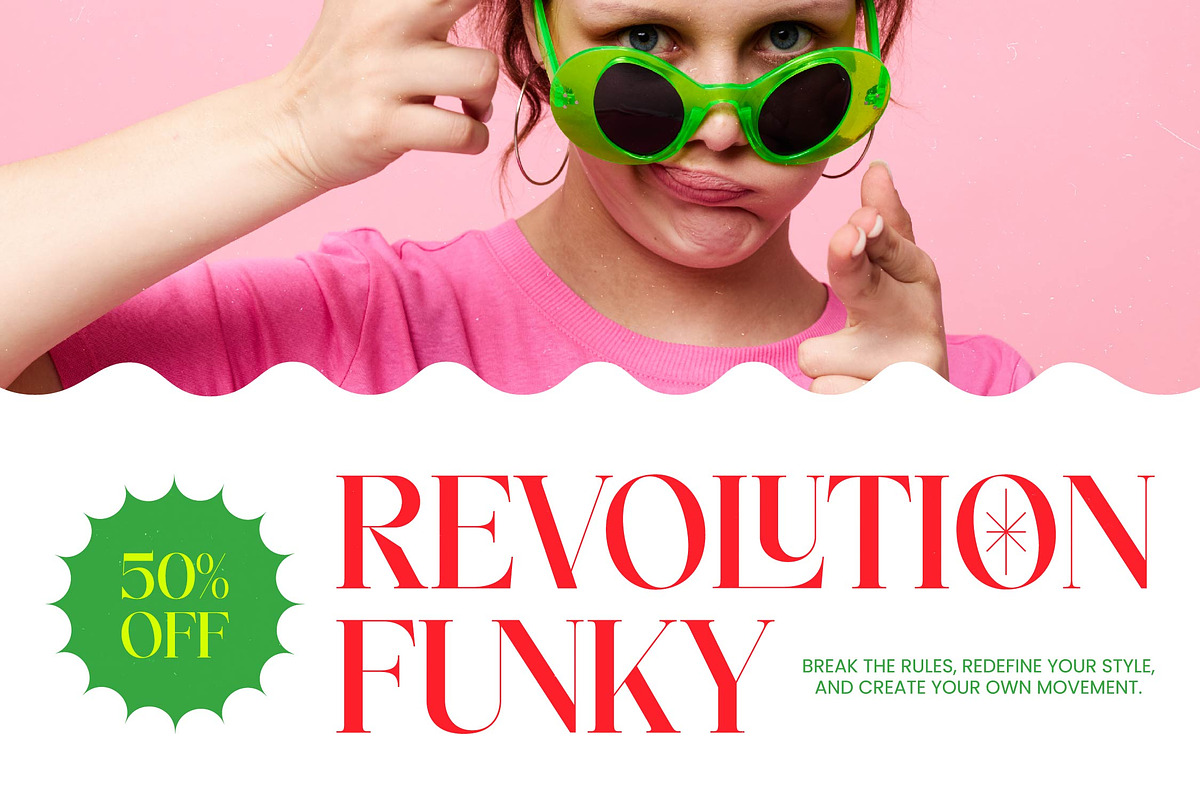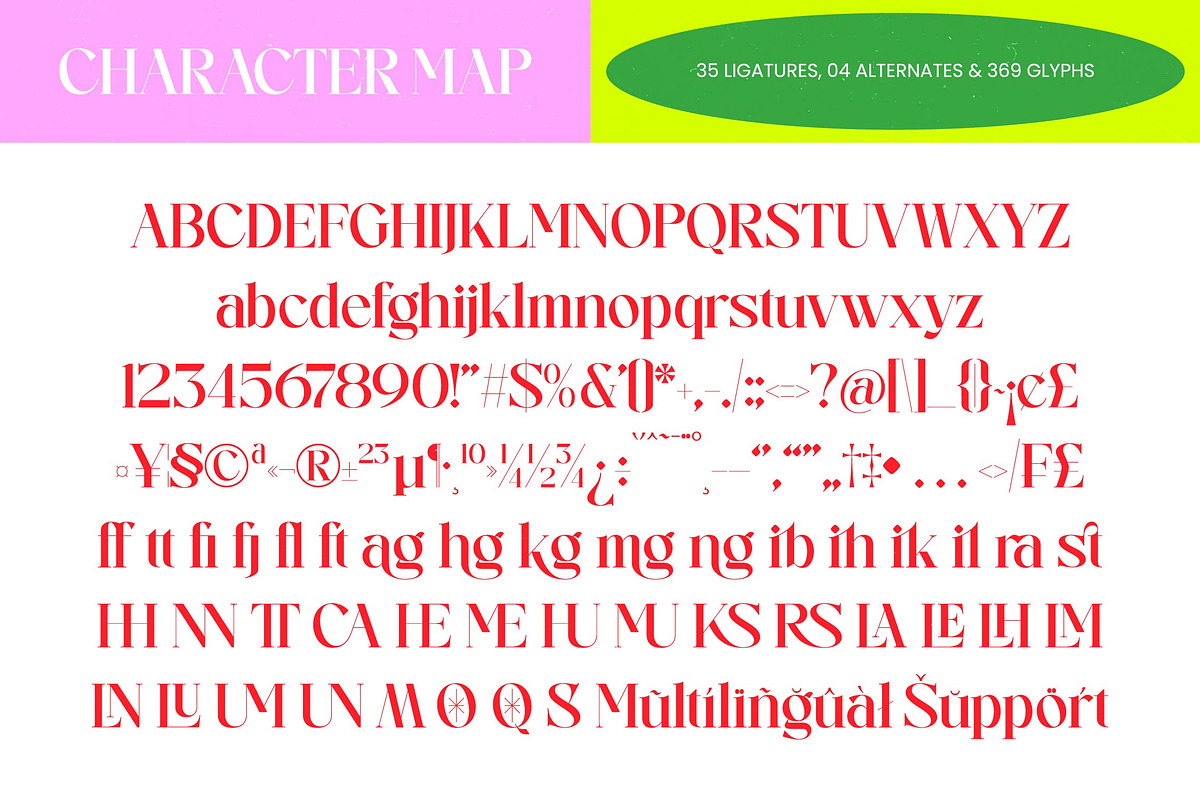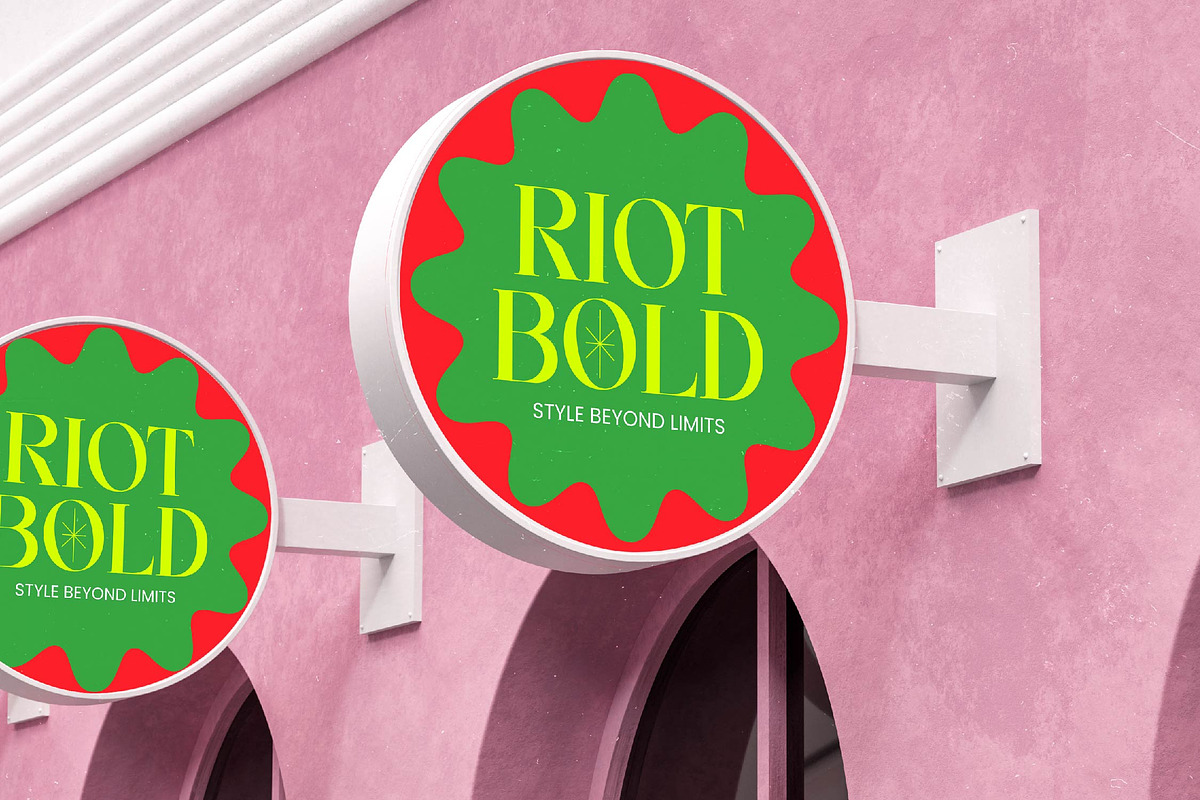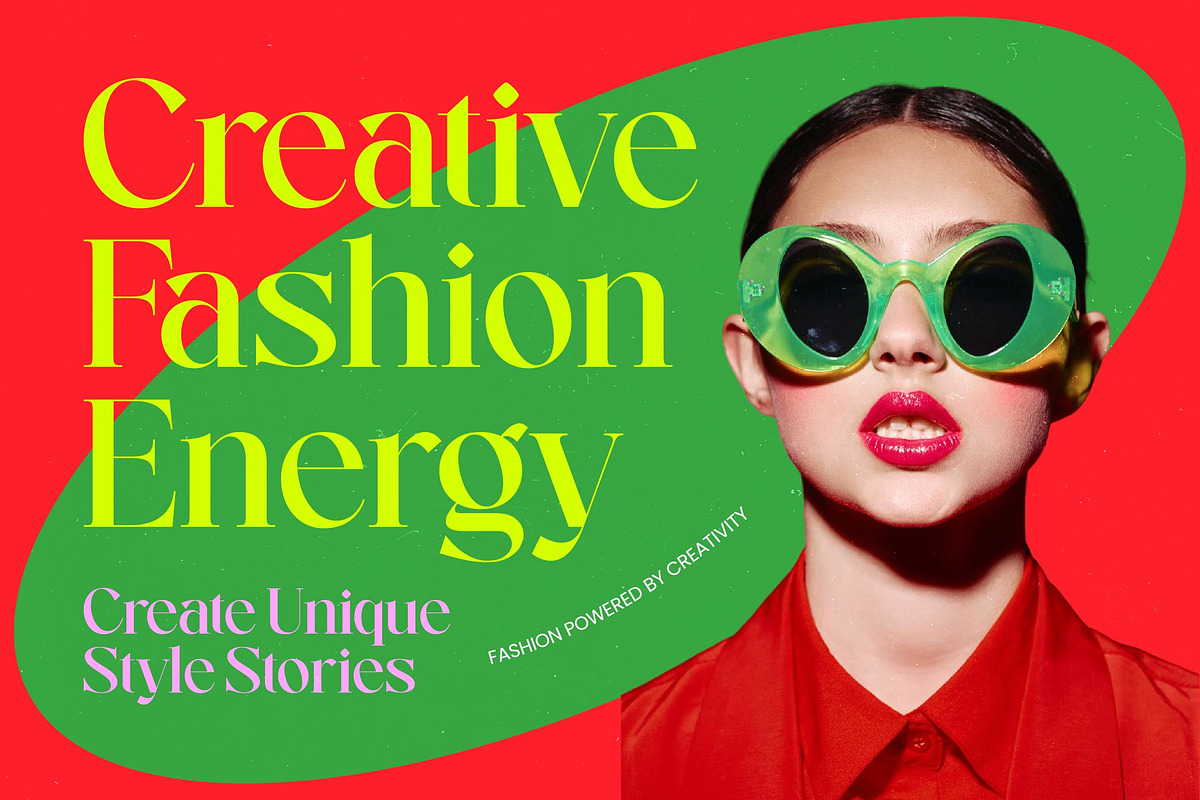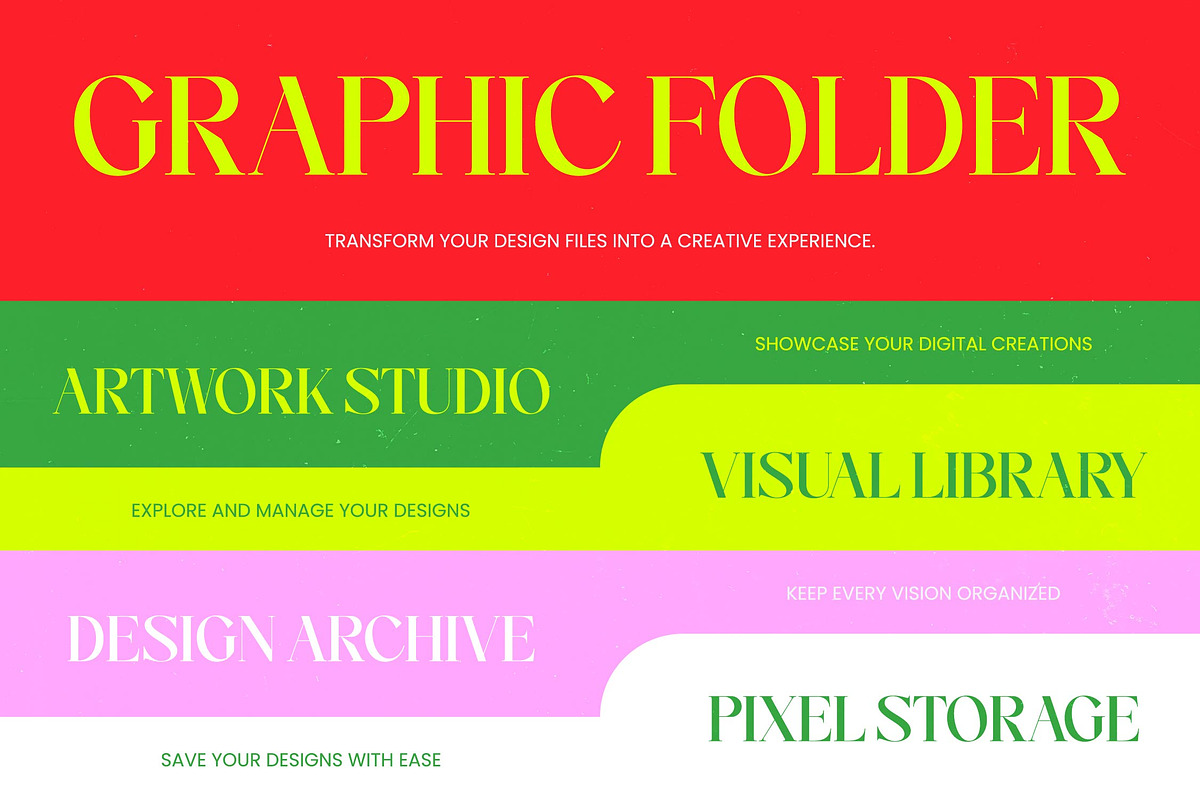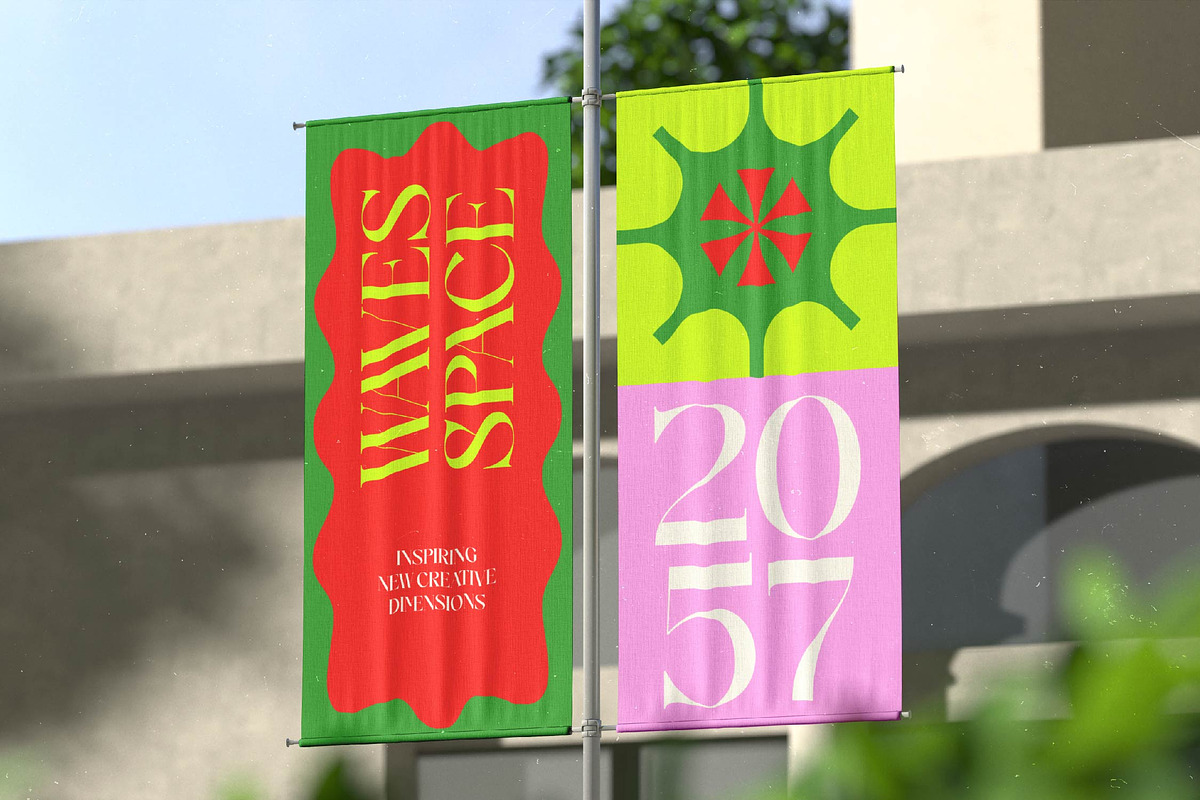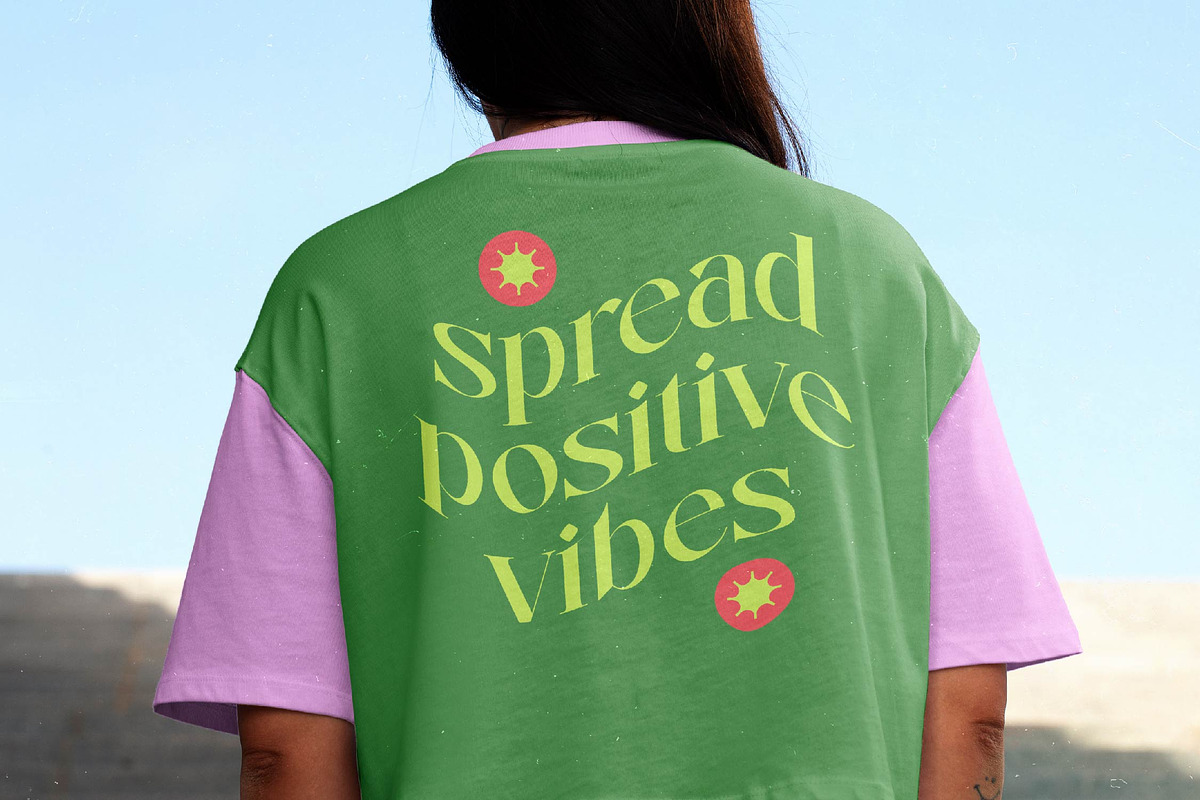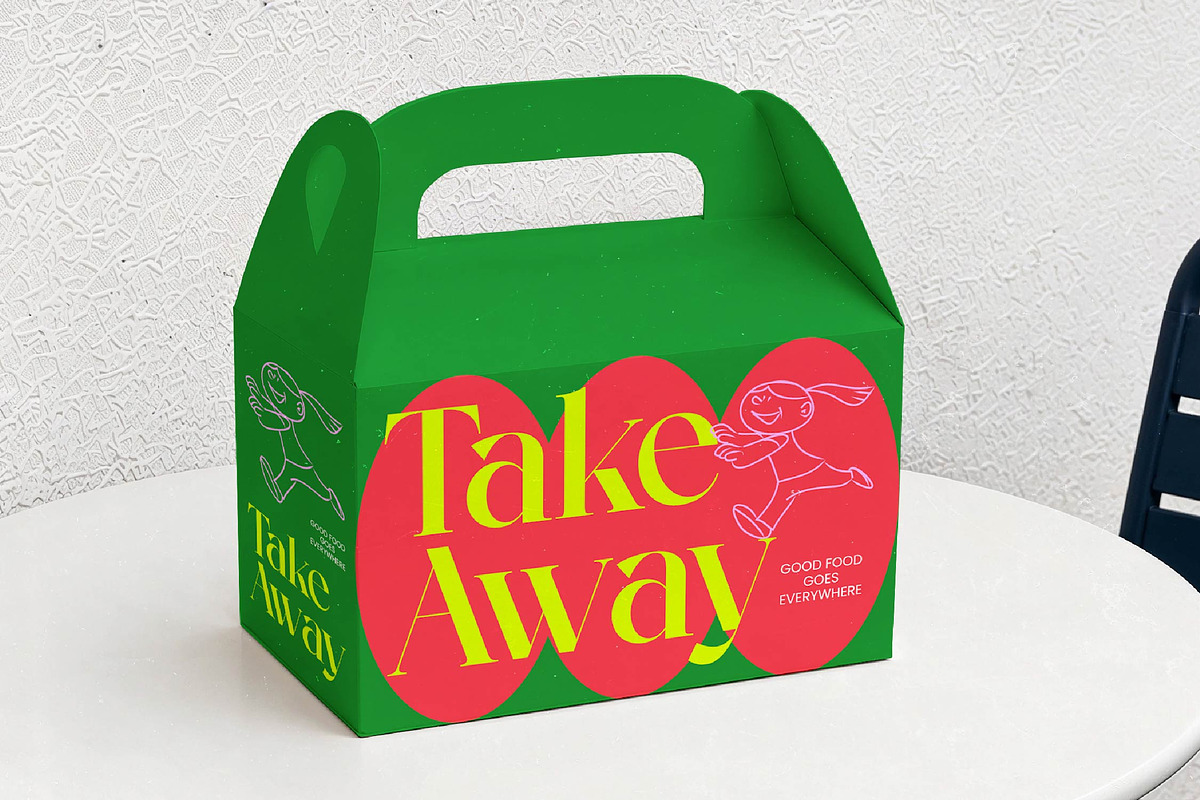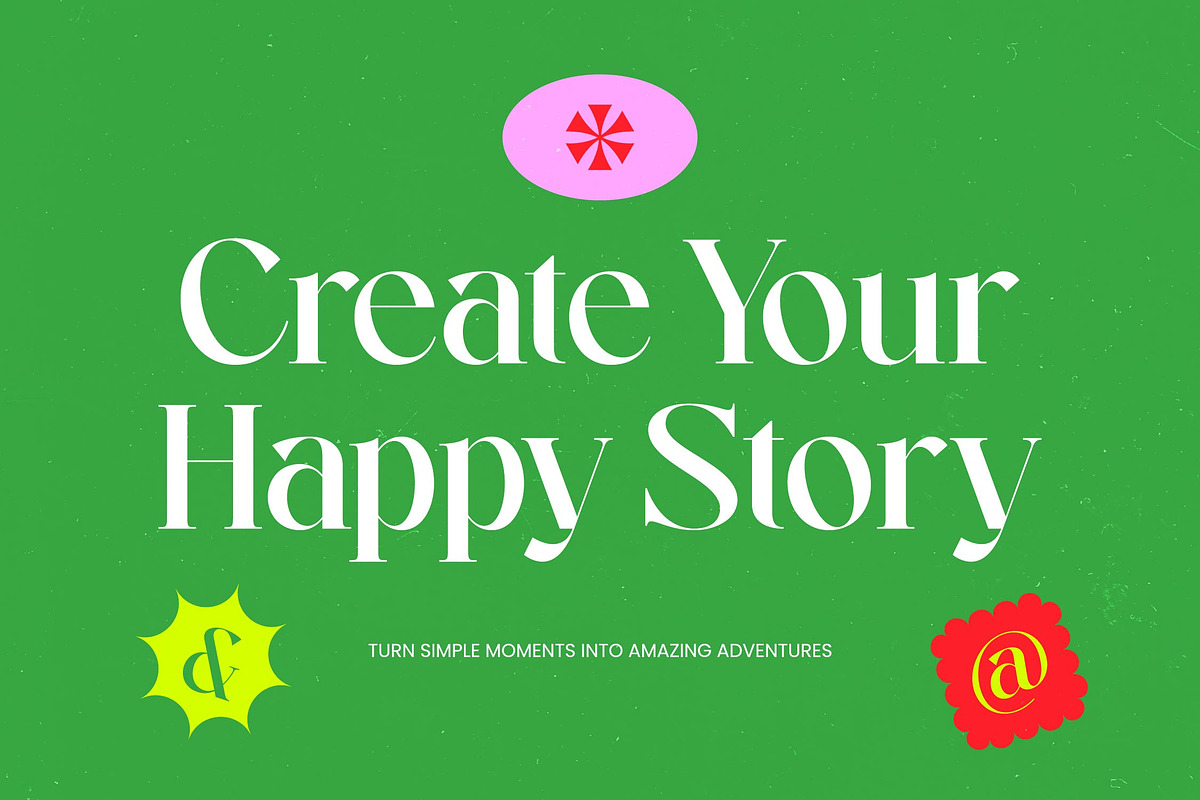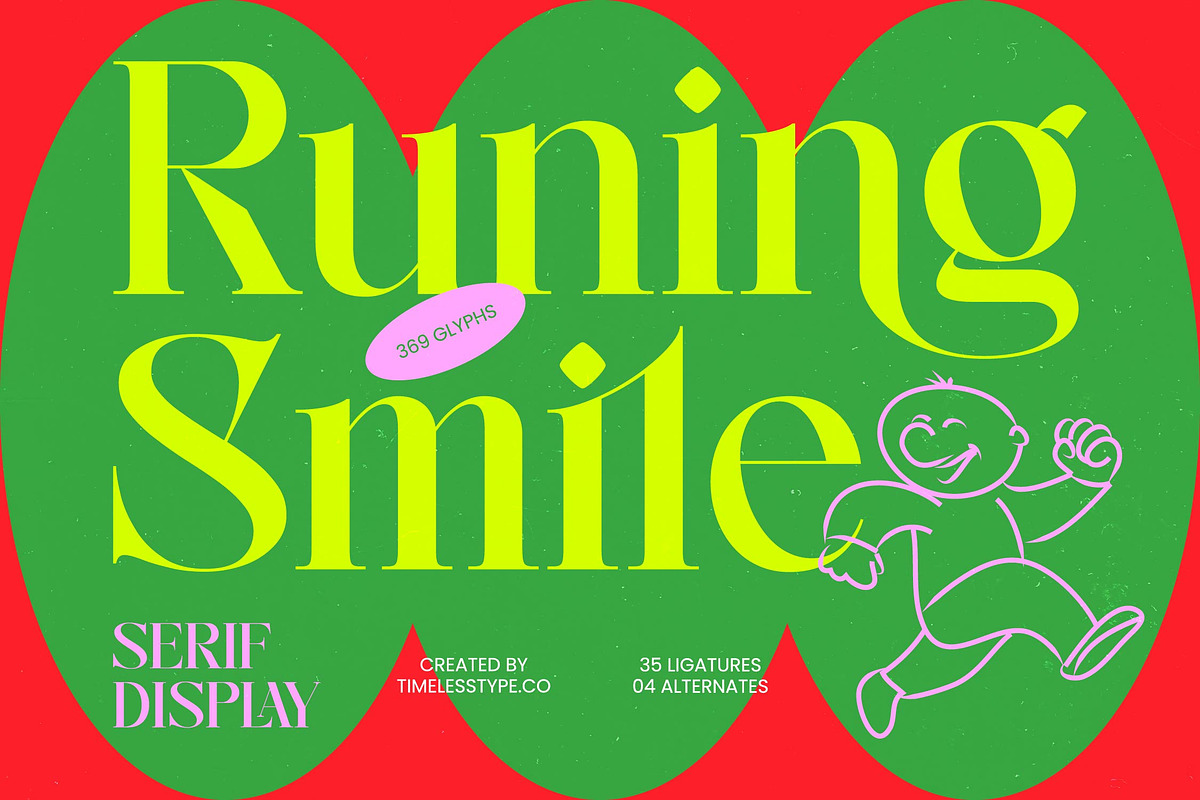
Runing Smile Serif Display
Runing Smile - Serif Display , Runing Smile - Serif Display captures the essence of vibrant energy and sophisticated joy, turning every word into a visual celebration. It is a typeface designed for those who want their message to radiate confidence and unmistakable charm.
Inspired by the intersection of high-fashion editorial layouts and the spirited movement of contemporary art, this font creates a rhythmic flow across the page. Its sharp serifs and generous curves evoke a feeling of timeless elegance mixed with a punchy, modern attitude.
This modern serif display provides an unparalleled luxury typography experience, featuring a high-contrast serif structure that demands immediate attention. Every character is crafted for maximum branding impact, making it the ultimate editorial font for projects that require a balance of grace and grit.
Staying ahead of the modern serif trend, this typeface aligns perfectly with the current shift toward editorial display fonts that prioritize personality. It is a prime example of character-driven typography that breaks away from the mundane to offer a fresh perspective on traditional letterforms.
Whether you are crafting a standout logo design or developing a comprehensive branding identity, this font delivers versatility across editorial layouts and luxury packaging. It adds a touch of high-end flair to wedding stationery and elevates the visual storytelling of any fashion campaign.
Each set includes a rich collection of ligatures and unique alternates to expand your creative possibilities beyond the standard set. Complete with multilingual support and a wide range of international characters, this font ensures your global vision is executed with technical precision.